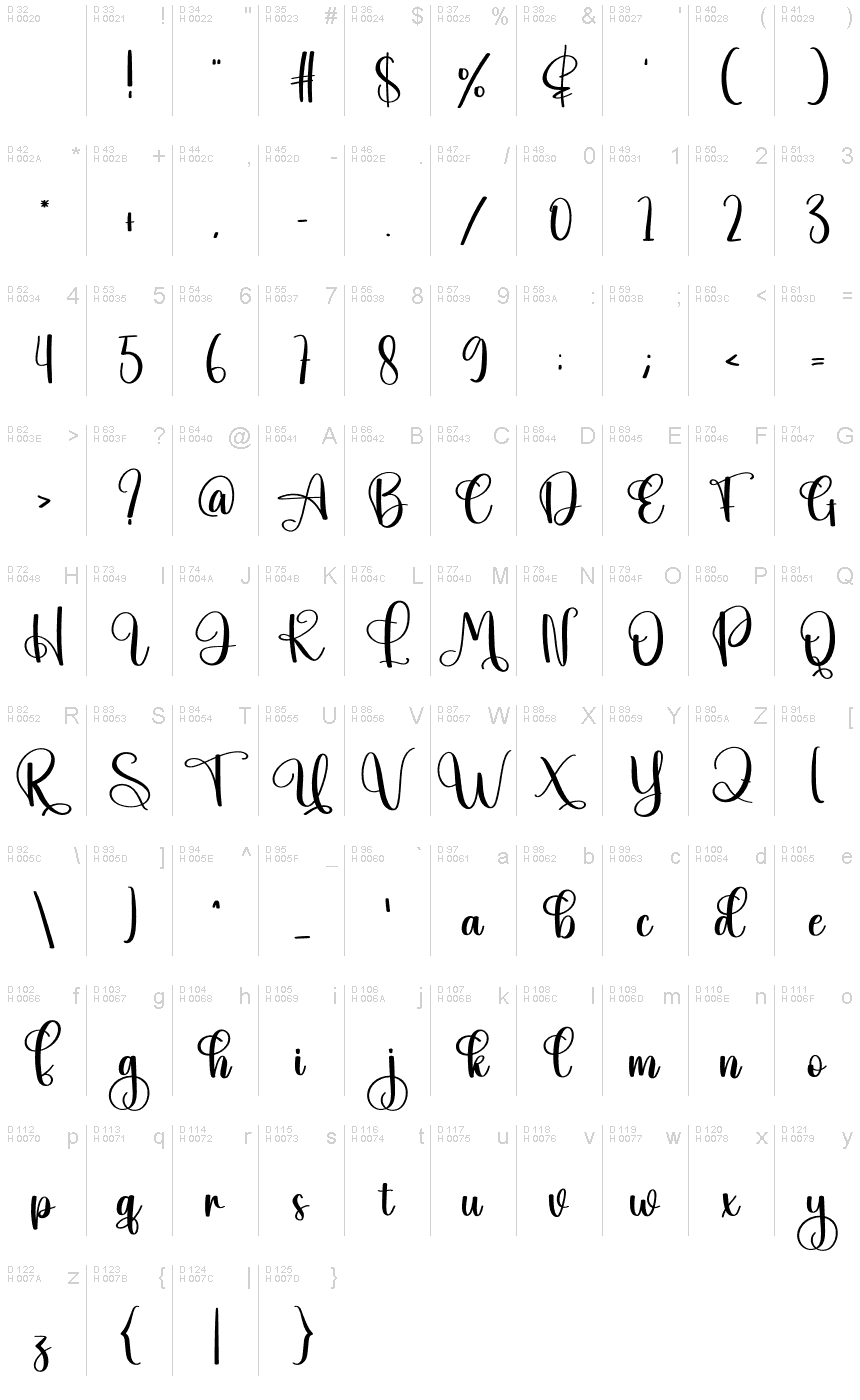
Reload
Reload, designed by Scratchones, stands out as an elegant calligraphy font with a semi-light weight that exudes a sense of fluidity and grace. The sweeping curves and fine lines reflect a modern twist on traditional calligraphy, giving the font an aesthetic appeal that is both contemporary and timeless.
The Reload font captures the essence of artistic handwriting while maintaining excellent readability. Its distinct character makes it ideal for a variety of creative projects. From wedding invitations to branded content, this font lends itself to occasions that call for a personal touch with a dash of sophistication.
Thanks to its versatile style and visual charm, Reload is perfectly suited for designers looking to infuse their work with a hint of artisanal flair without sacrificing clarity. Whether it's for print or digital media, Reload promises to elevate your designs with its unique blend of classic elegance and modern finesse.
The Reload font captures the essence of artistic handwriting while maintaining excellent readability. Its distinct character makes it ideal for a variety of creative projects. From wedding invitations to branded content, this font lends itself to occasions that call for a personal touch with a dash of sophistication.
Thanks to its versatile style and visual charm, Reload is perfectly suited for designers looking to infuse their work with a hint of artisanal flair without sacrificing clarity. Whether it's for print or digital media, Reload promises to elevate your designs with its unique blend of classic elegance and modern finesse.